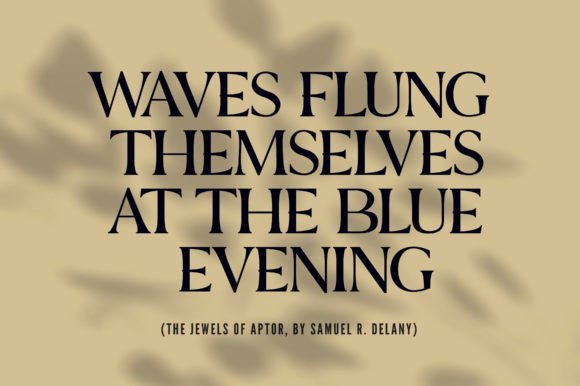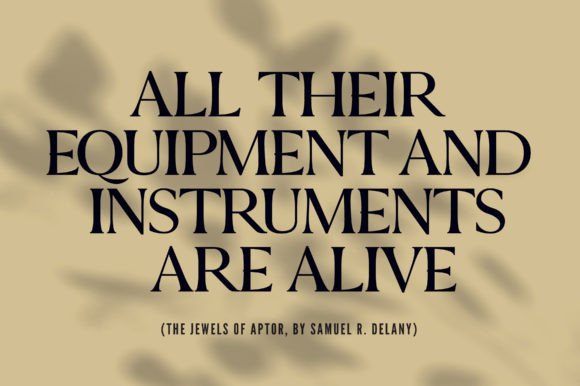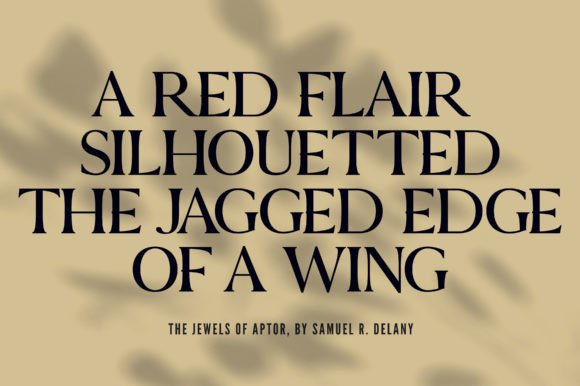
Introduction to Epigram Font
Introducing our elegant and chic modern serif font, crafted with the utmost attention to detail to bring your designs to life.
With over 570 meticulously designed glyphs, this font is versatile enough to use for any project, from branding to editorial design The sleek and minimalist design of this font exudes sophistication, making it perfect for modern designs that demand attention.
Key Features of Epigram Font
Why Choose Epigram Font?
Epigram Font offers exceptional quality and versatility, making it a valuable addition to your design toolkit. Whether you’re creating for personal projects or commercial use, Epigram Font delivers professional results.